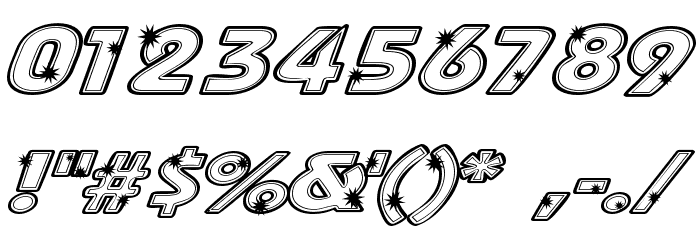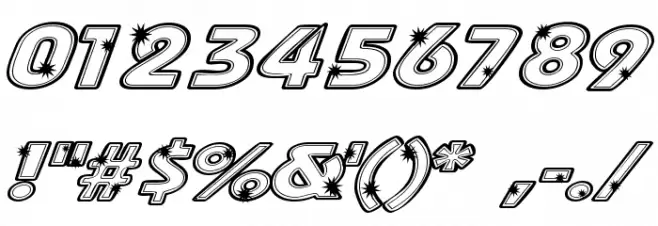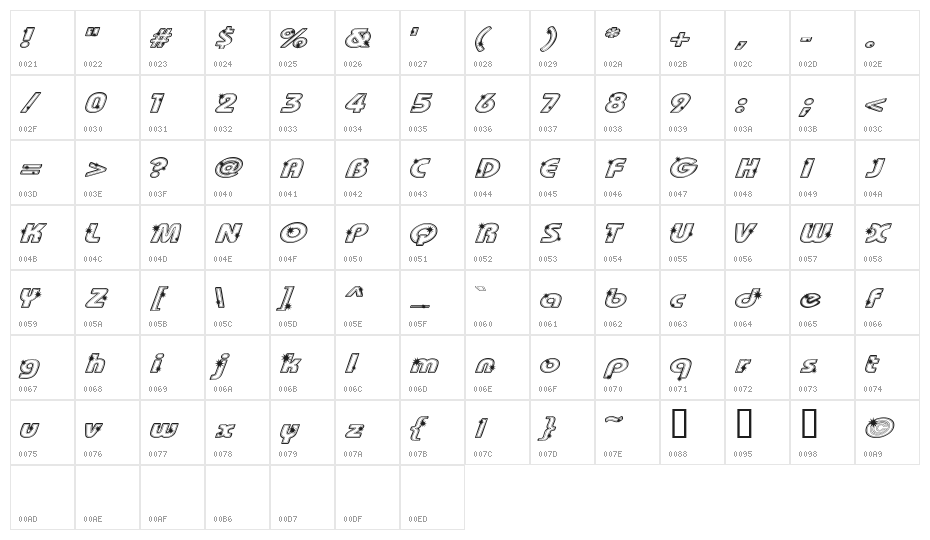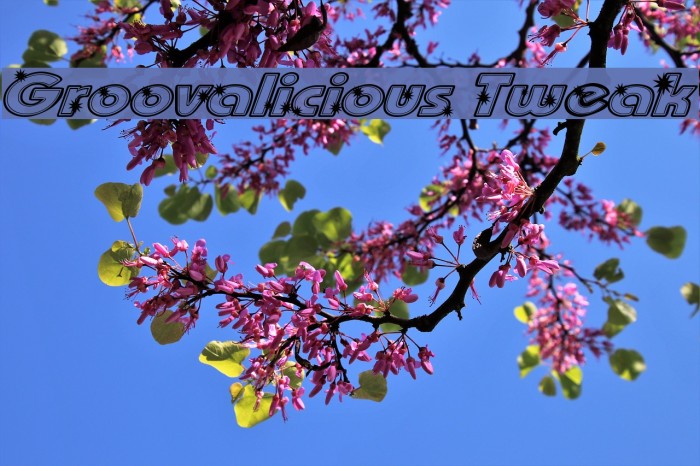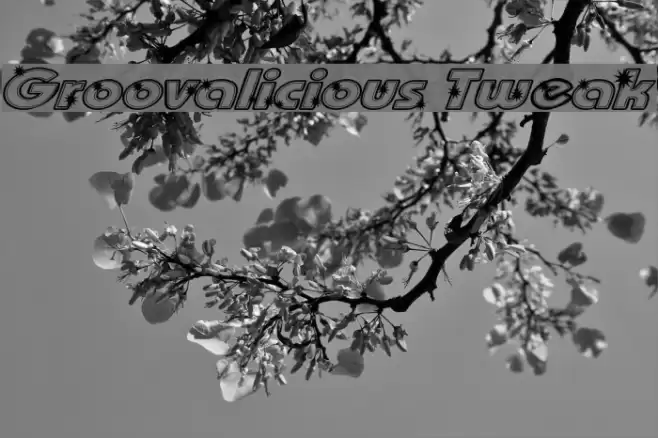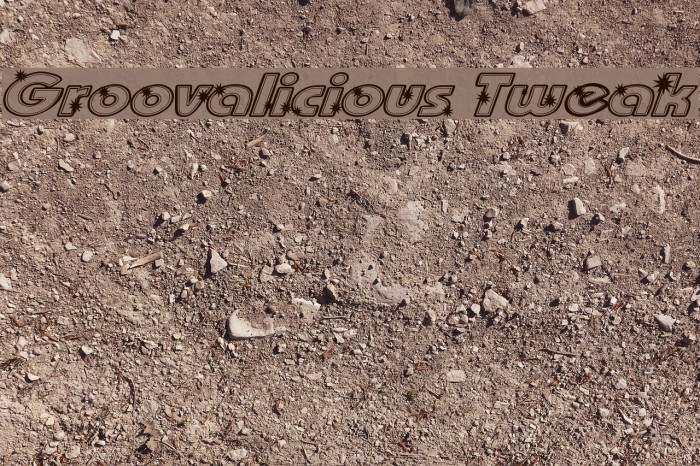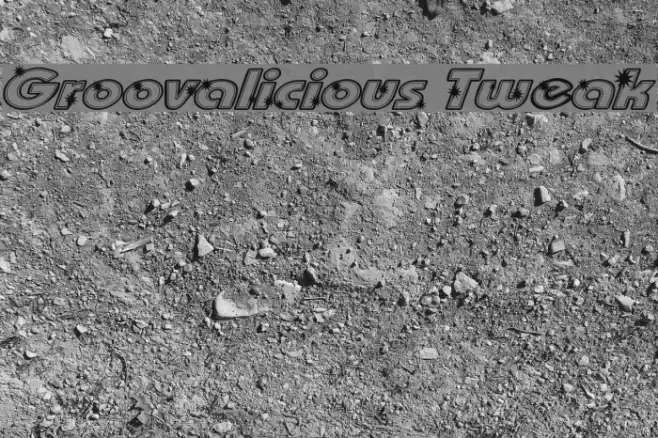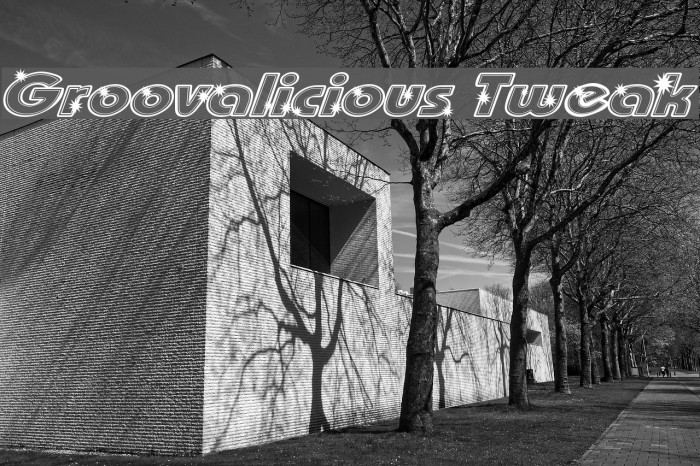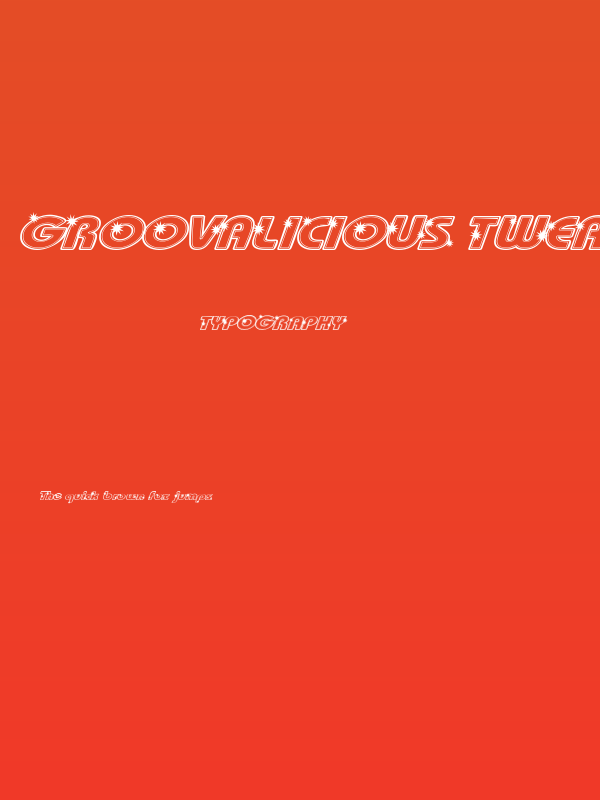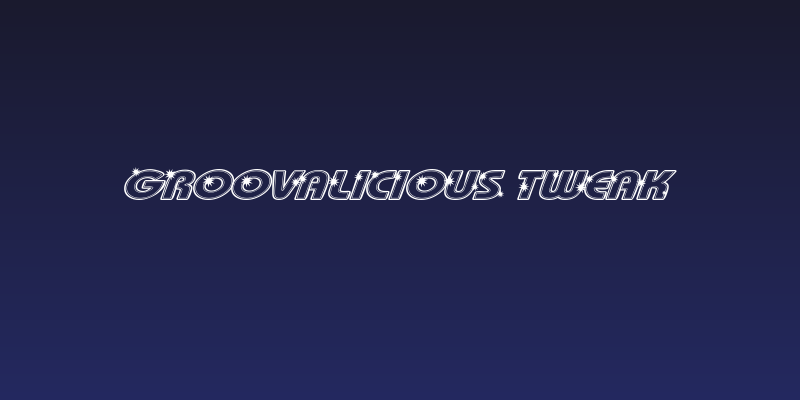
Groovalicious Tweak Font
Groovalicious Tweak Description
This font features a playful and dynamic style, characterized by bold, rounded letters with a unique starburst effect integrated into each character. The design is reminiscent of retro and disco aesthetics, giving it a lively and energetic feel. The letters are outlined, adding depth and a three-dimensional look. This font is highly decorative, making it ideal for projects that require a fun and eye-catching typeface. The inclusion of special characters and numbers ensures versatility in various design contexts.
| Overall Style | Retro, Decorative |
| Proposed Projects | Ideal for party invitations, music event posters, retro-themed branding, and playful merchandise designs. |